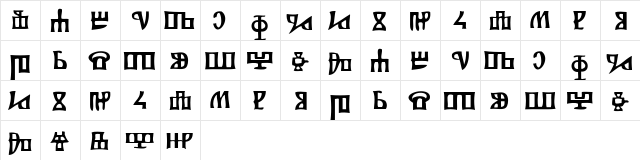
Glagolitsa Regular
| Foundry | Daniel Poeira |
| Designer | Daniel Poeira |
Design Context for Glagolitsa Typeface
Glagolitsa is a composed and adaptable typeface that performs quietly and consistently across a wide range of design contexts.